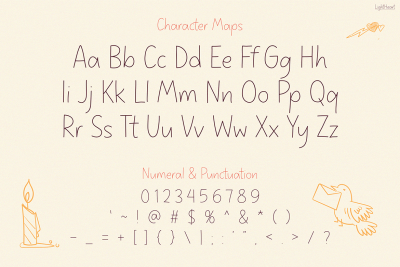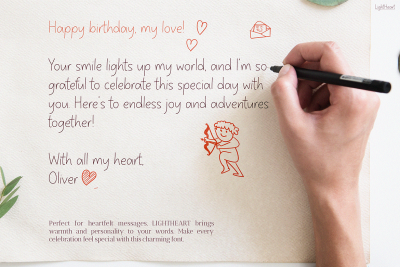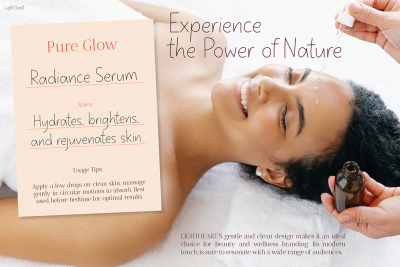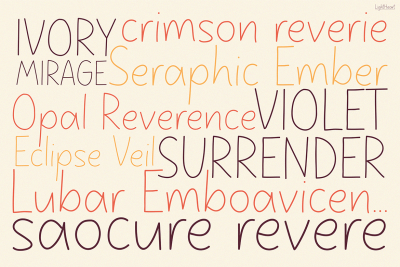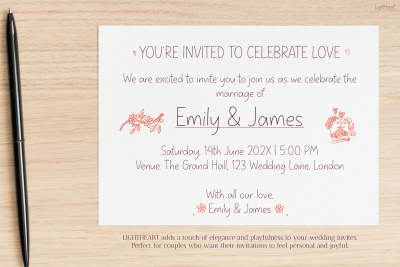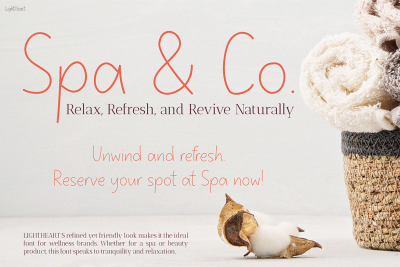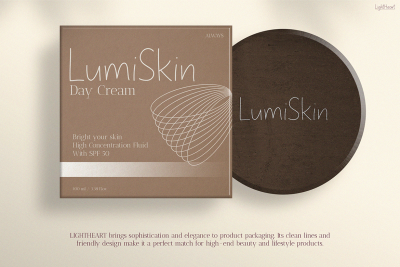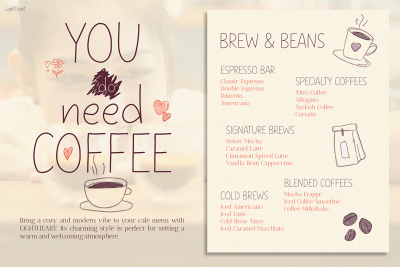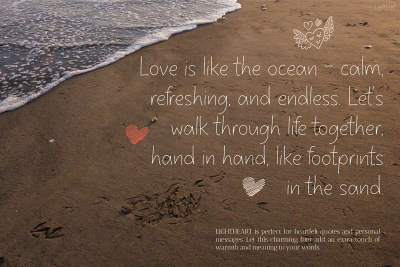
Handwriting Font Lightheart is a beautifully crafted typeface that blends elegance with a modern, minimalist touch. It exudes warmth, personality, and authenticity. The light strokes, gentle curves, and delicate letterforms create a soft yet expressive feel. This makes it ideal for designs that need a personal and heartfelt touch.
What makes Lightheart unique is its balance between casual and sophisticated. It captures the organic flow of handwriting while staying structured and readable. The slight variations in stroke weight and irregular baseline enhance its natural feel. As a result, this font adds depth and charm to any design.
Beyond aesthetics, Lightheart is also highly versatile. It works well for branding, invitations, social media graphics, and editorial designs. Whether you’re designing for a beauty brand, wellness business, or lifestyle blog, this font elevates your content with style.
Handwriting Font Lightheart Perfect For?
- Creative Entrepreneurs & Small Business Owners โ Whether you own a boutique or an online shop, Lightheart adds a friendly and stylish feel to your brand. It works beautifully for logoshttps://justtheskills.com/product-category/fonts/handwiring-font/, business cards, and packaging.
- Graphic Designers & Content Creators โ If you’re making social media posts, blog headers, or artistic branding, this font blends elegance with creativity. It enhances storytelling and makes designs feel more personal.
- Beauty & Wellness Brands โ From skincare packaging to spa brochures, Lightheart conveys calmness and purity. Itโs an excellent choice for self-care and wellness businesses.
- Wedding & Event Planners โ Its handwritten charm is perfect for invitations, menus, and thank-you cards. The graceful strokes create a romantic and intimate feel.
- Lifestyle Bloggers & Influencers โ Whether for Instagram, Pinterest, or websites, this font adds an authentic and stylish touch. It makes messages feel warm and engaging.
Elevate Your Designs with Lightheart
If you need a handwriting font with warmth and elegance, Lightheart is a perfect choice. It offers a natural, inviting look that enhances any design. Whether for personal projects or professional branding, it helps create visuals that truly connect.